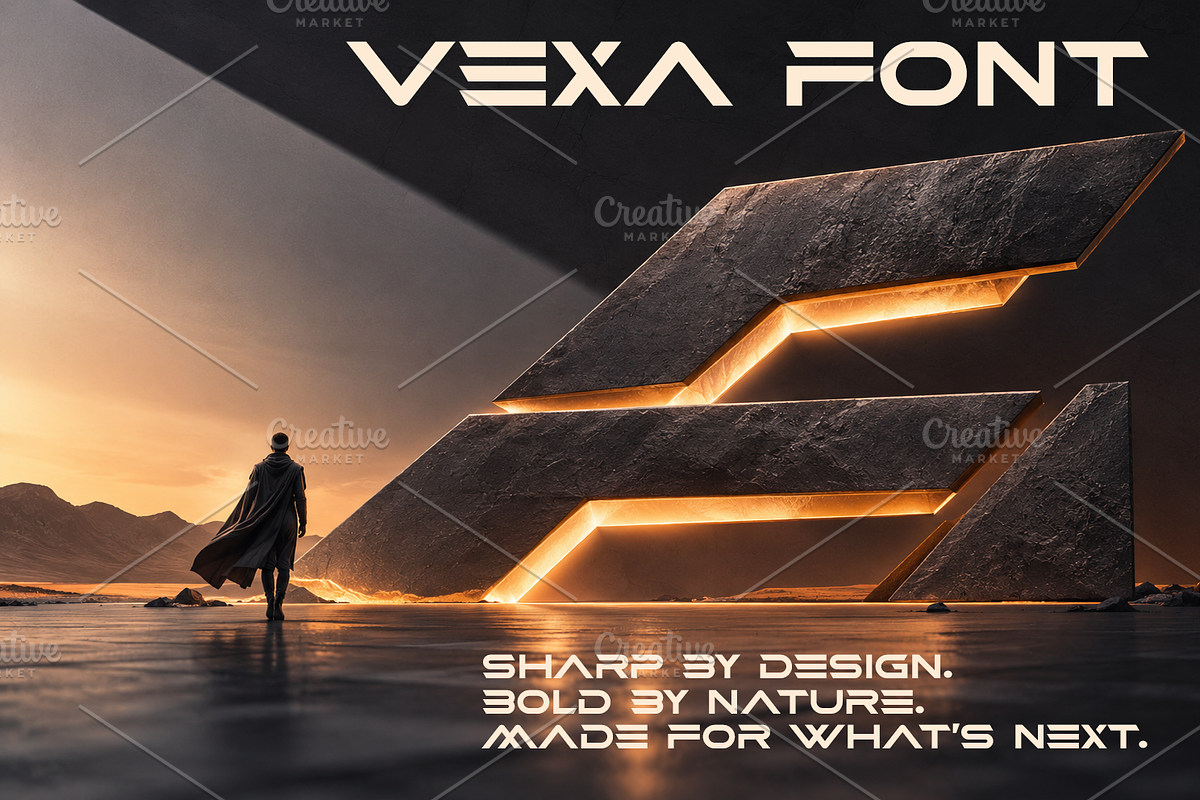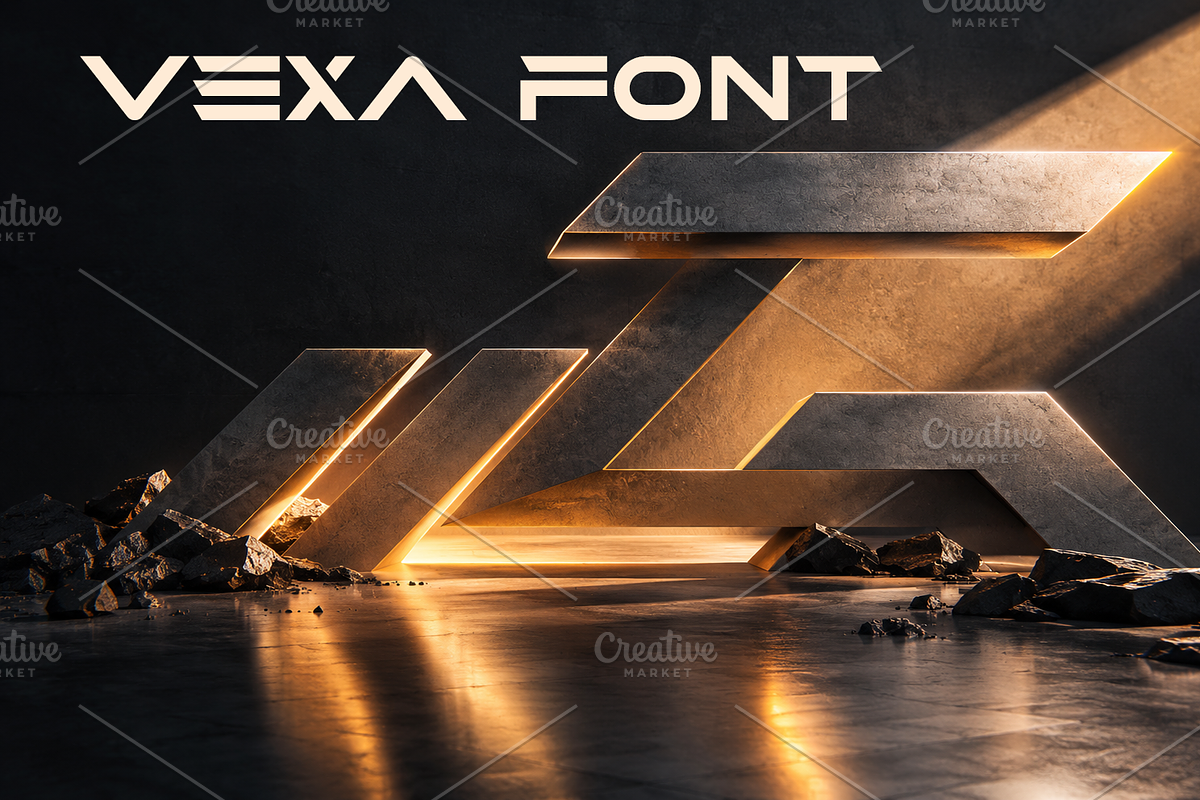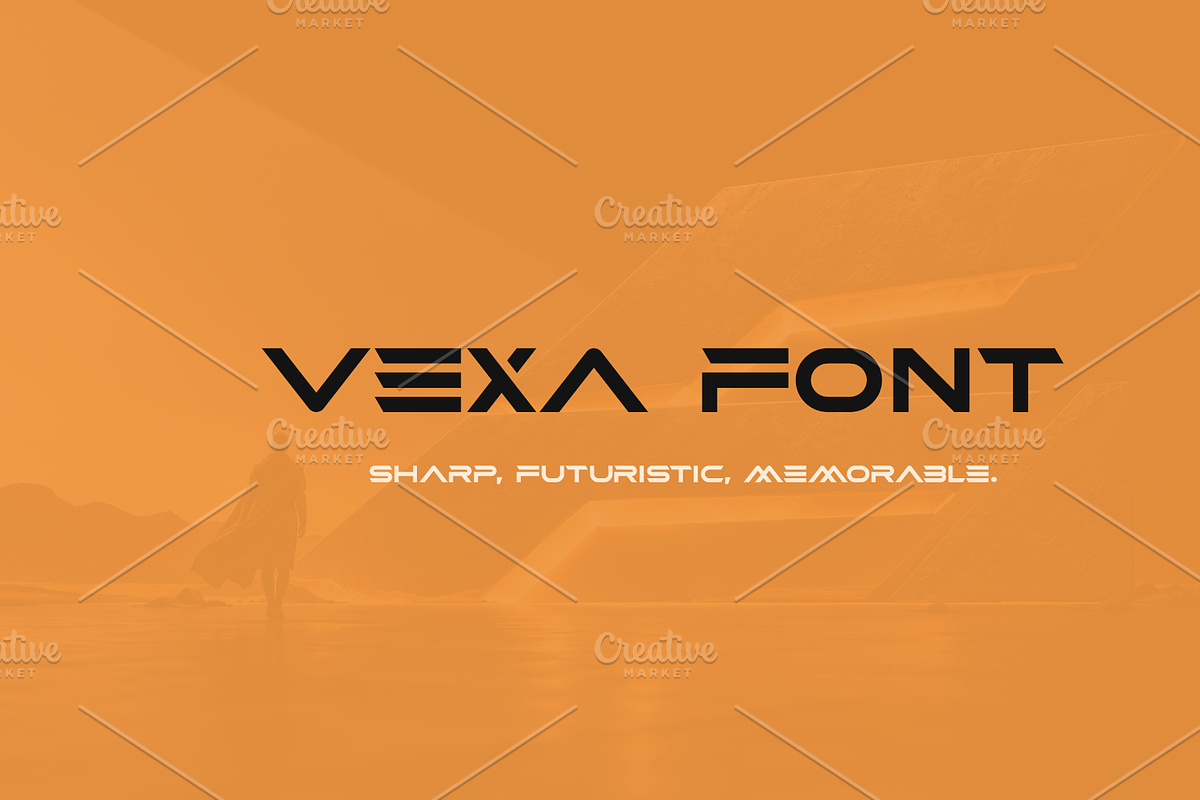
VEXA — Shape the Future
Some typefaces carry words. VEXA gives them a presence.
Built around sharp geometry, bold proportions, and futuristic details, VEXA transforms ordinary lettering into a powerful visual statement.
Its distinctive forms blend technology, architecture, and sci-fi aesthetics into a display typeface designed to stand out.
Perfect for logos, headlines, posters, album artwork, branding, gaming, technology, fashion, and digital campaigns.
Sharp by design. Bold by nature. Made for what’s next.